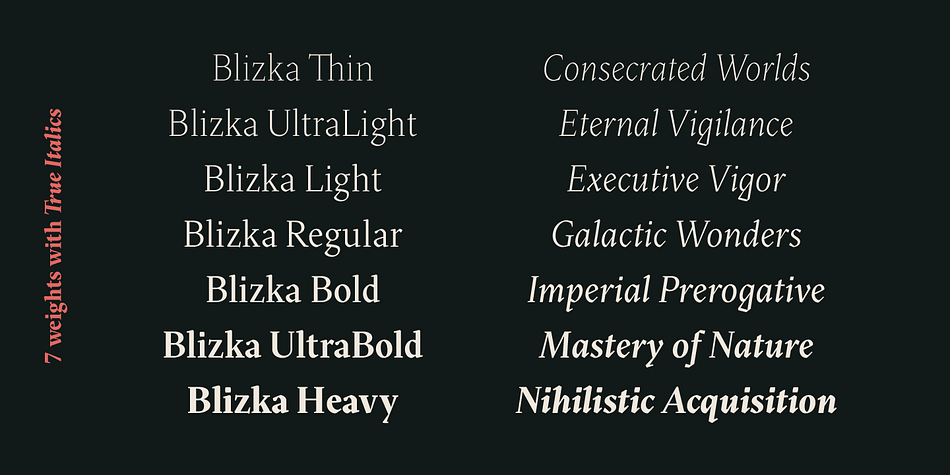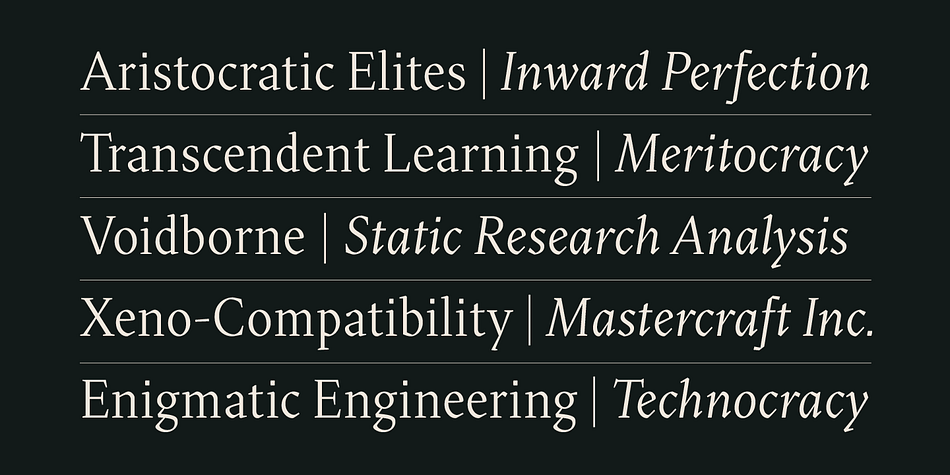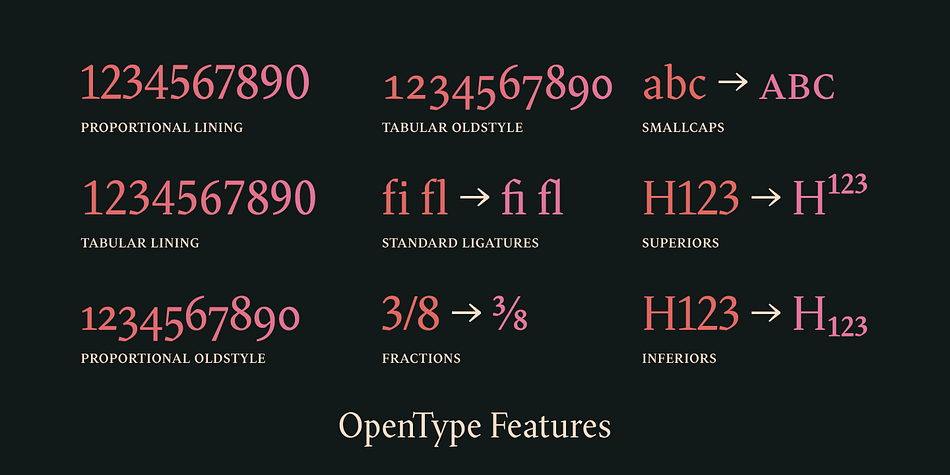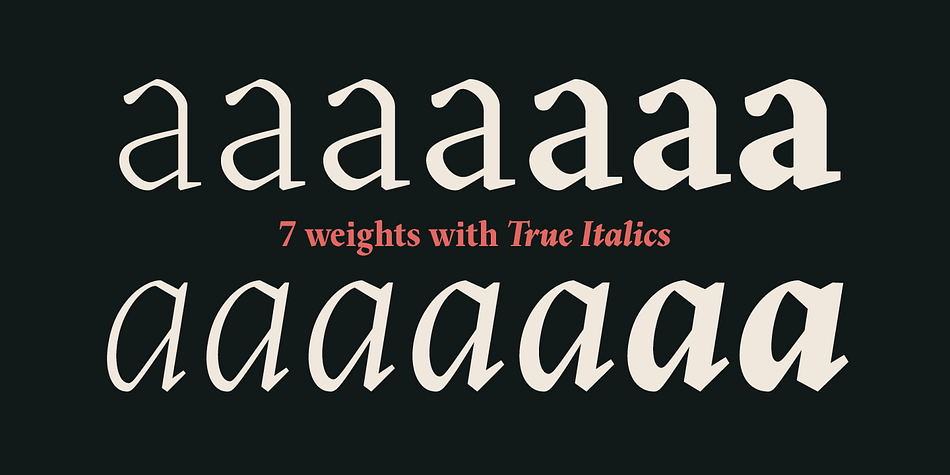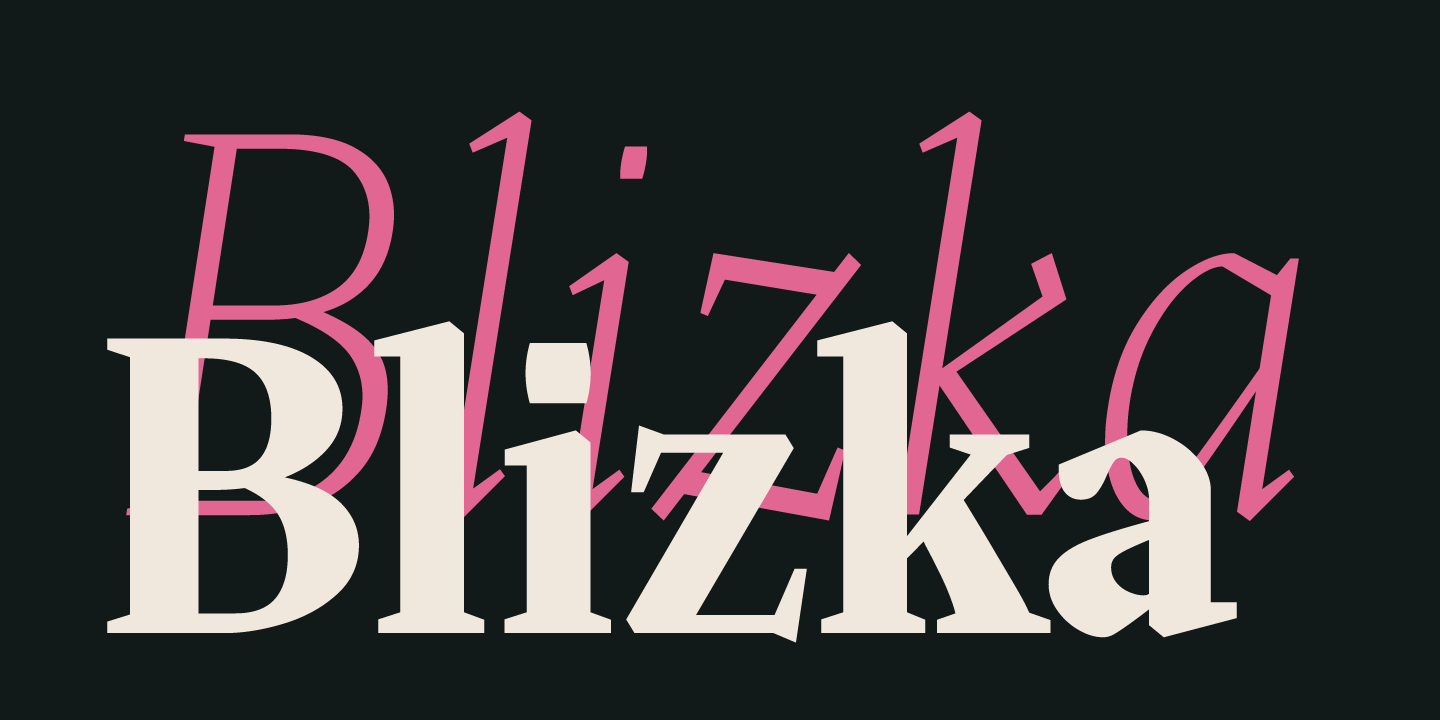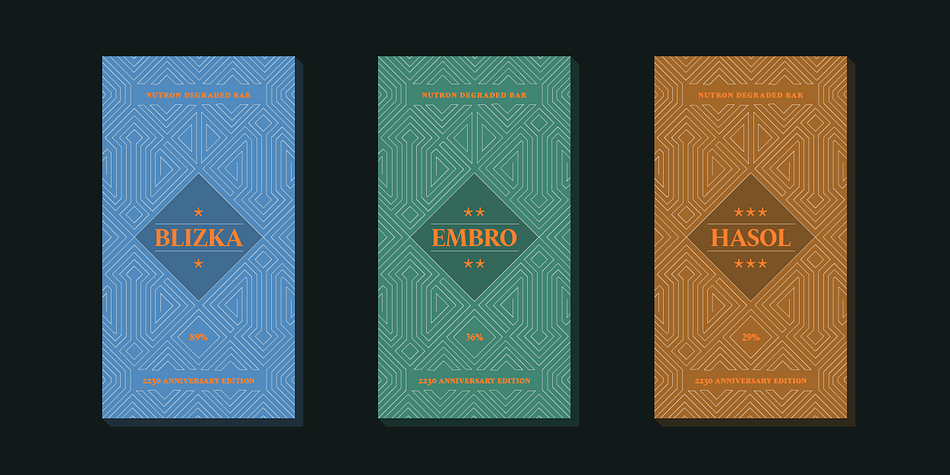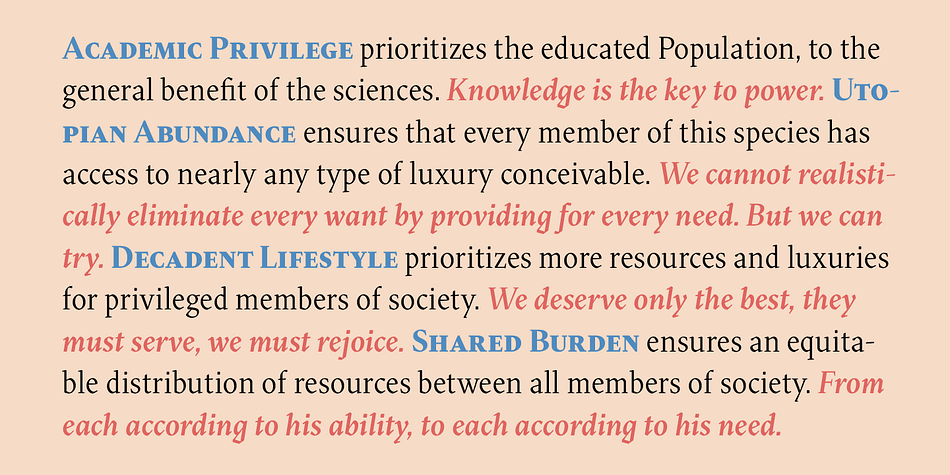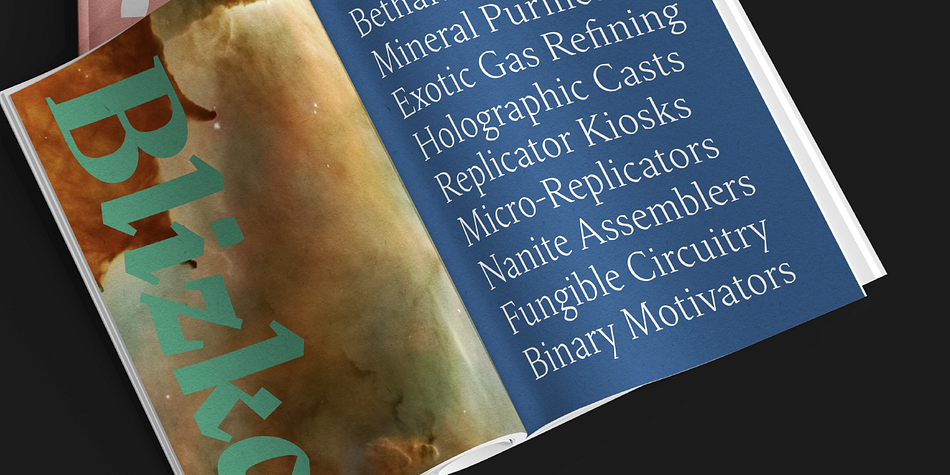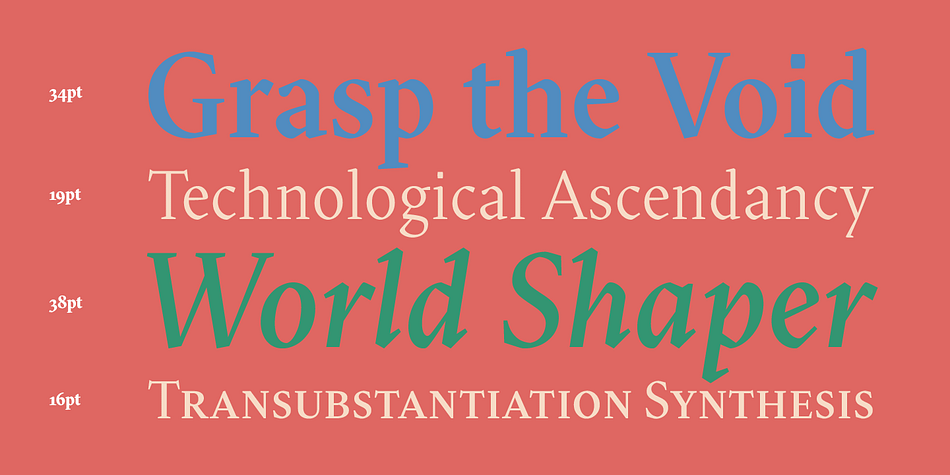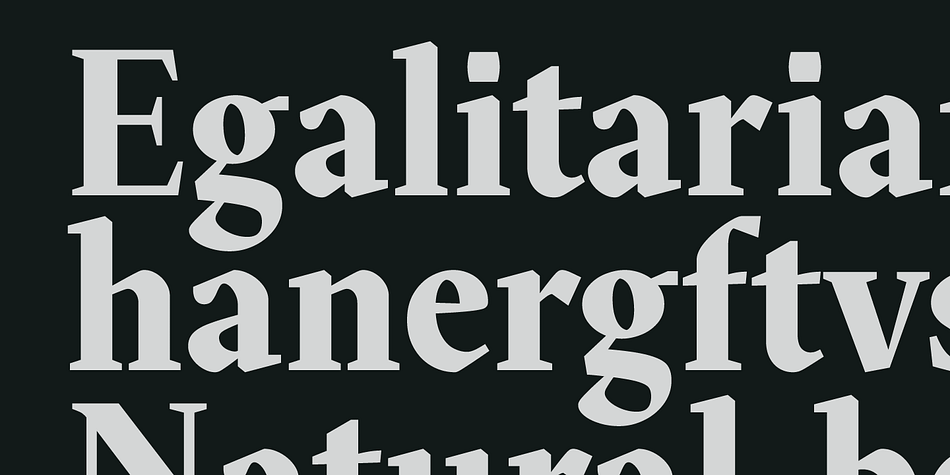
Designed by Yuexin Huo, Blizka is a serif font family. This typeface has fourteen styles and was published by YXType.
Blizka is a legible serif with much characteristics! Inspired by calligraphic strokes, it features straight cuts in unexpected details. Great care is taken to make sure all letters flow harmoniously with each other for a superb reading experience for small texts. Blizka is subtle and functional in small sizes but perverse and full of personality when large!
• Support over 200 languages with full coverage of western & central European Latin.
• Beautiful Italics
• SmallCaps
• Proportional, tabular, oldstyle figures, fractions, you name it.